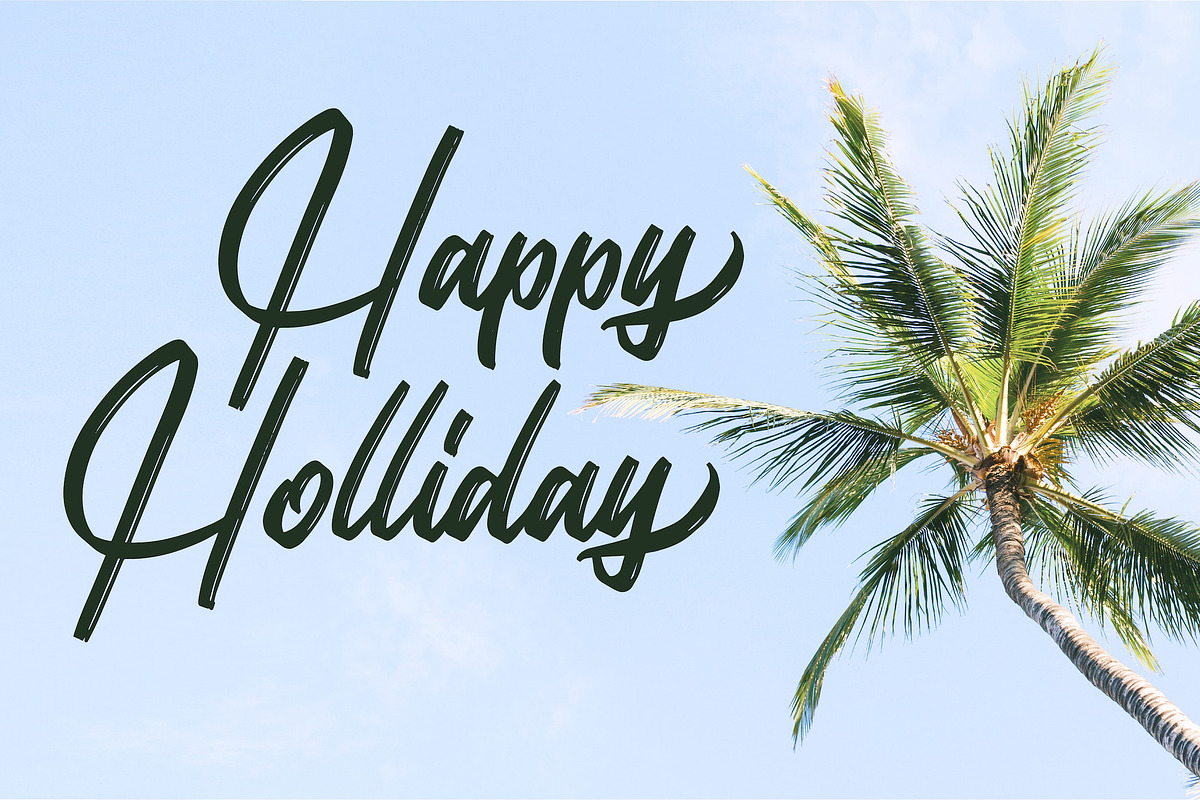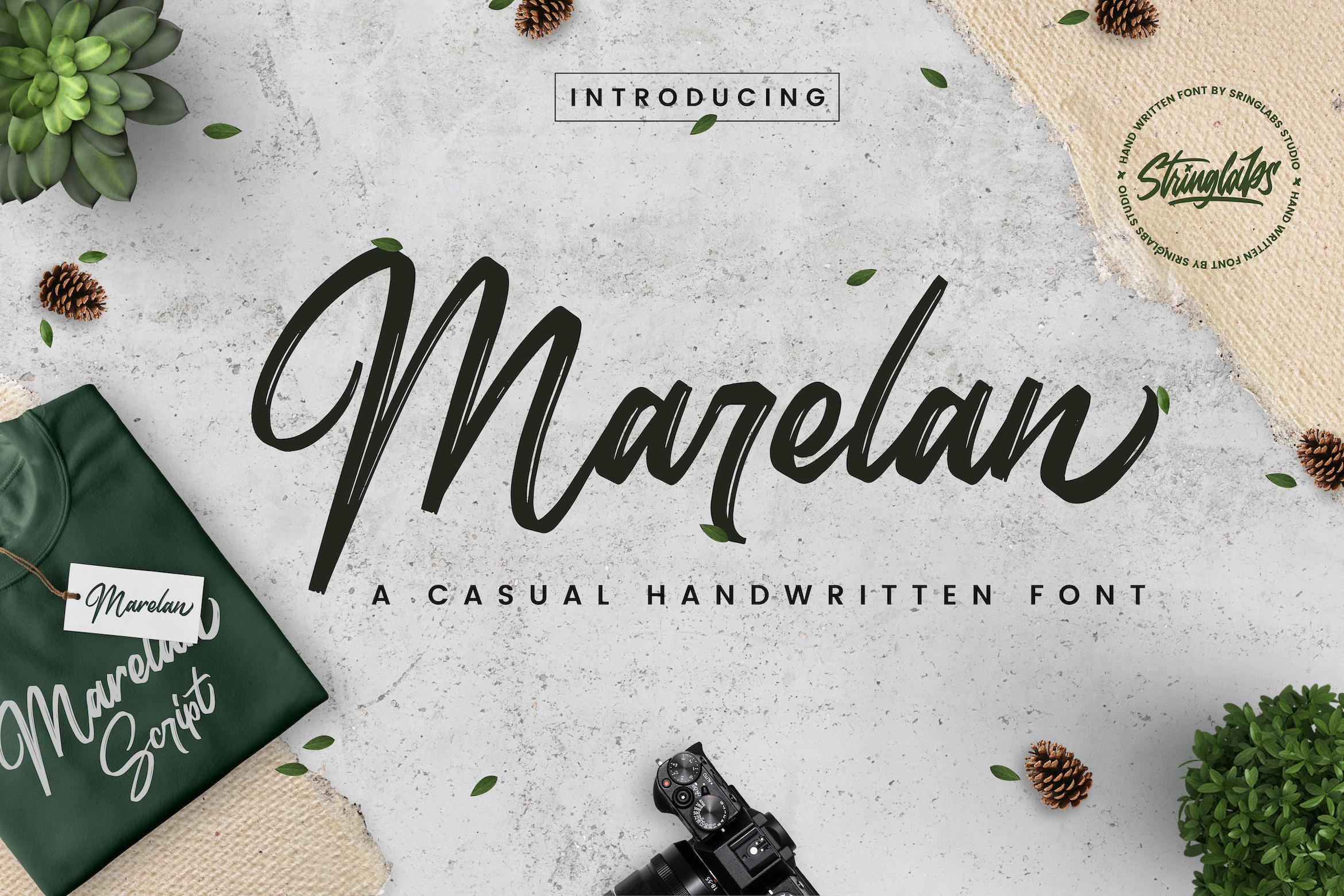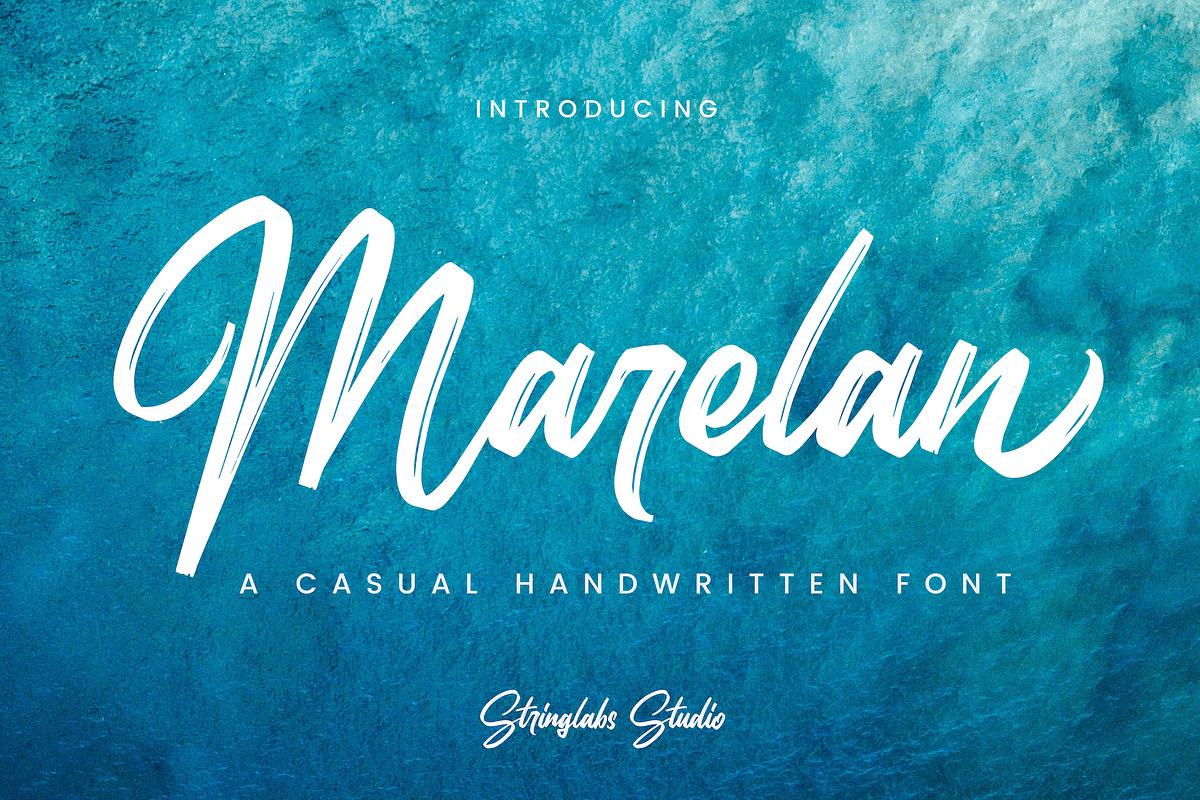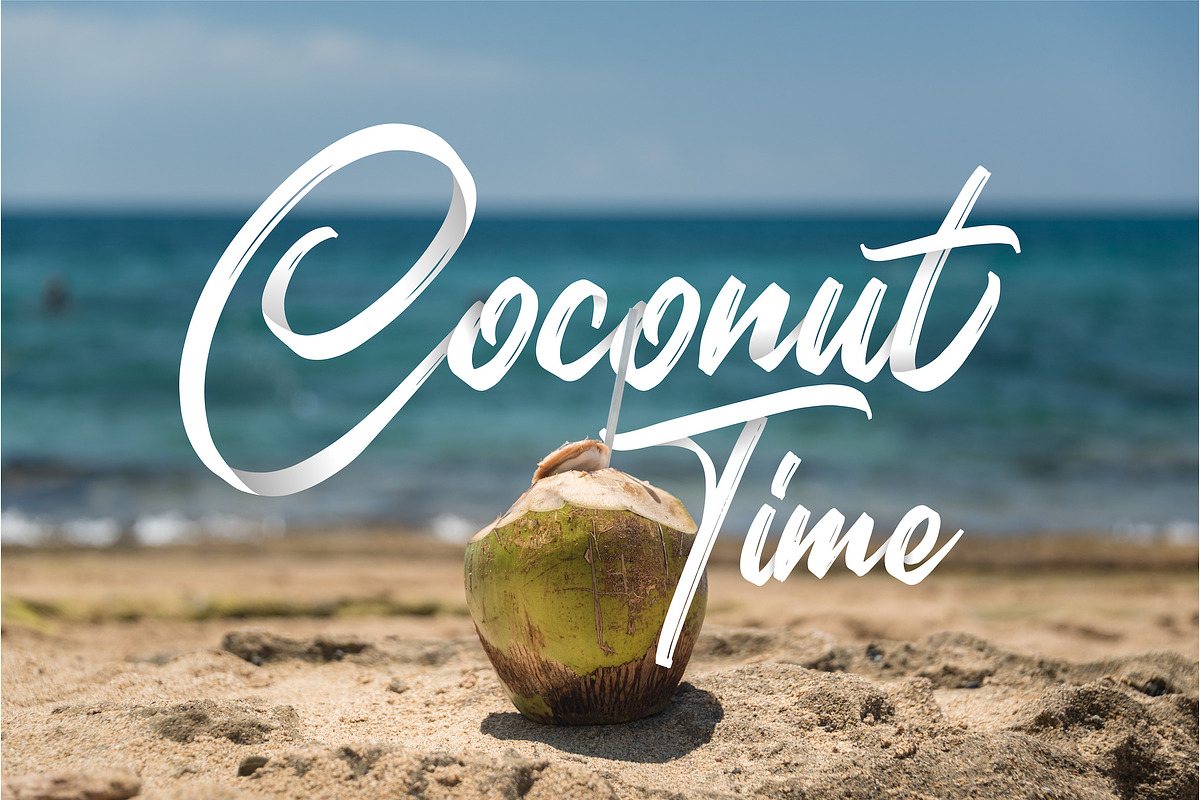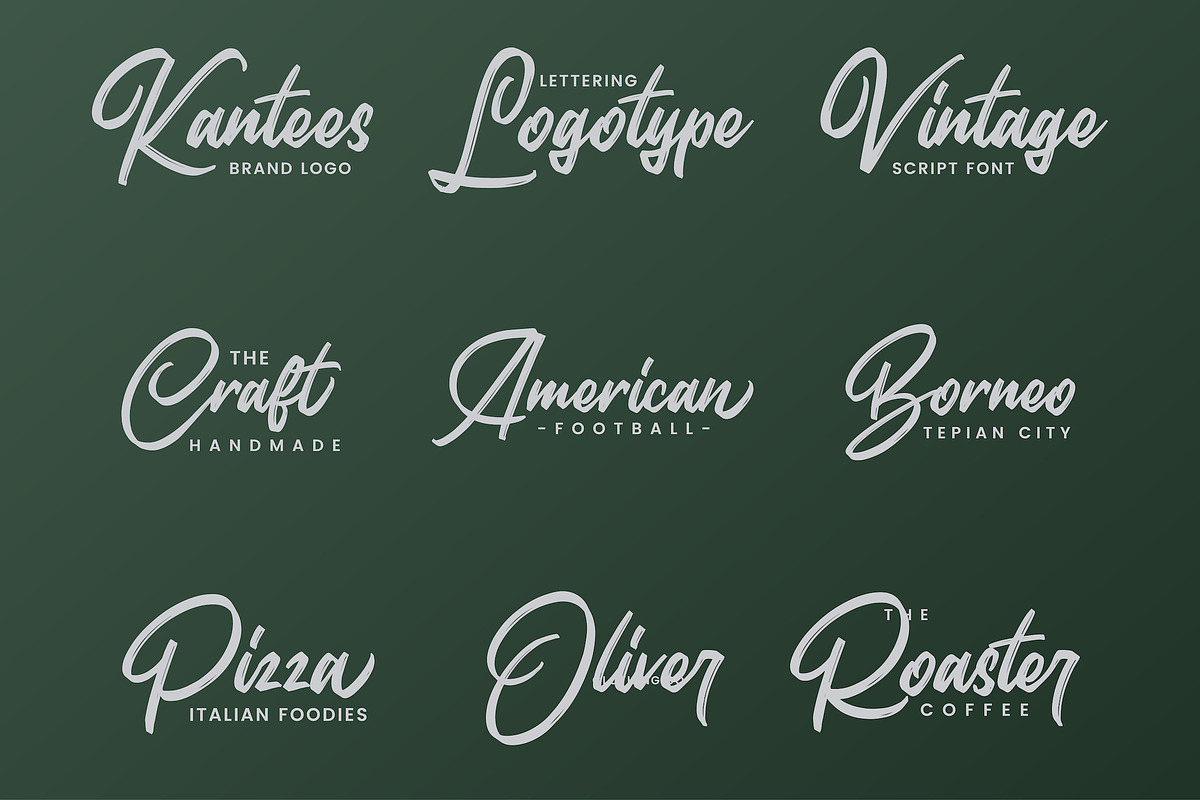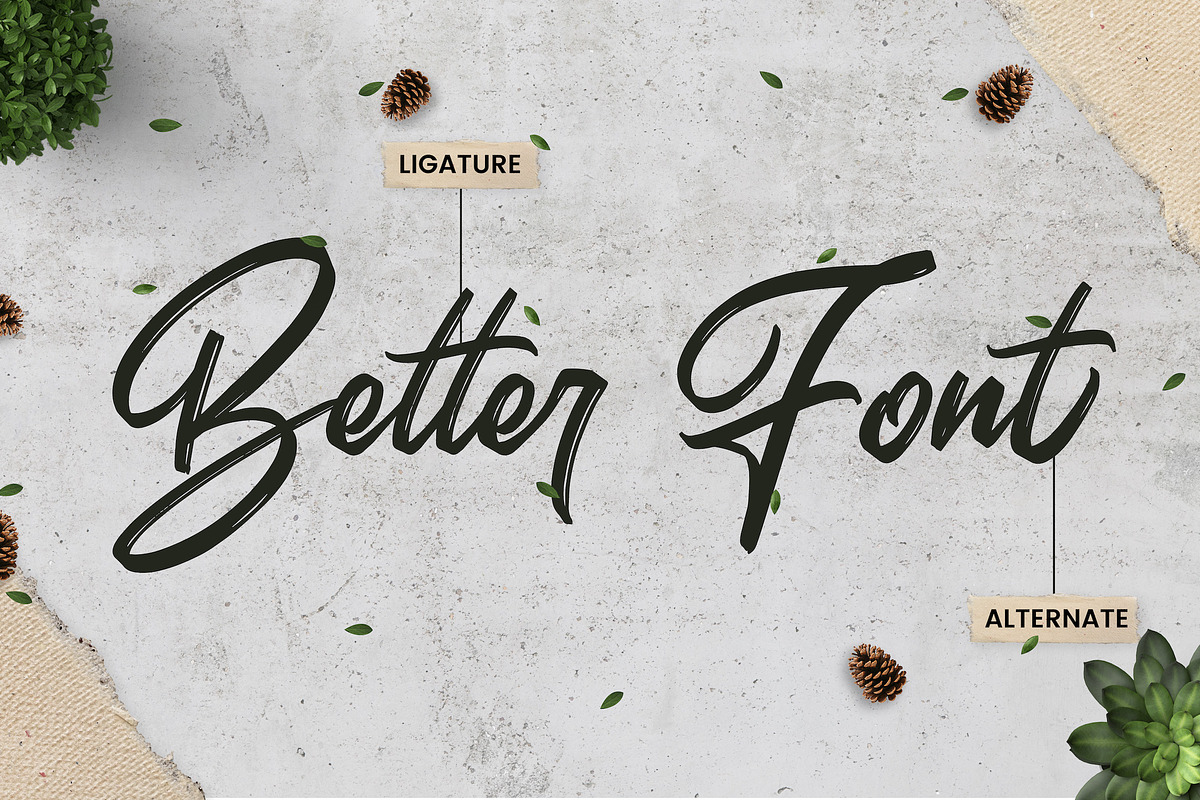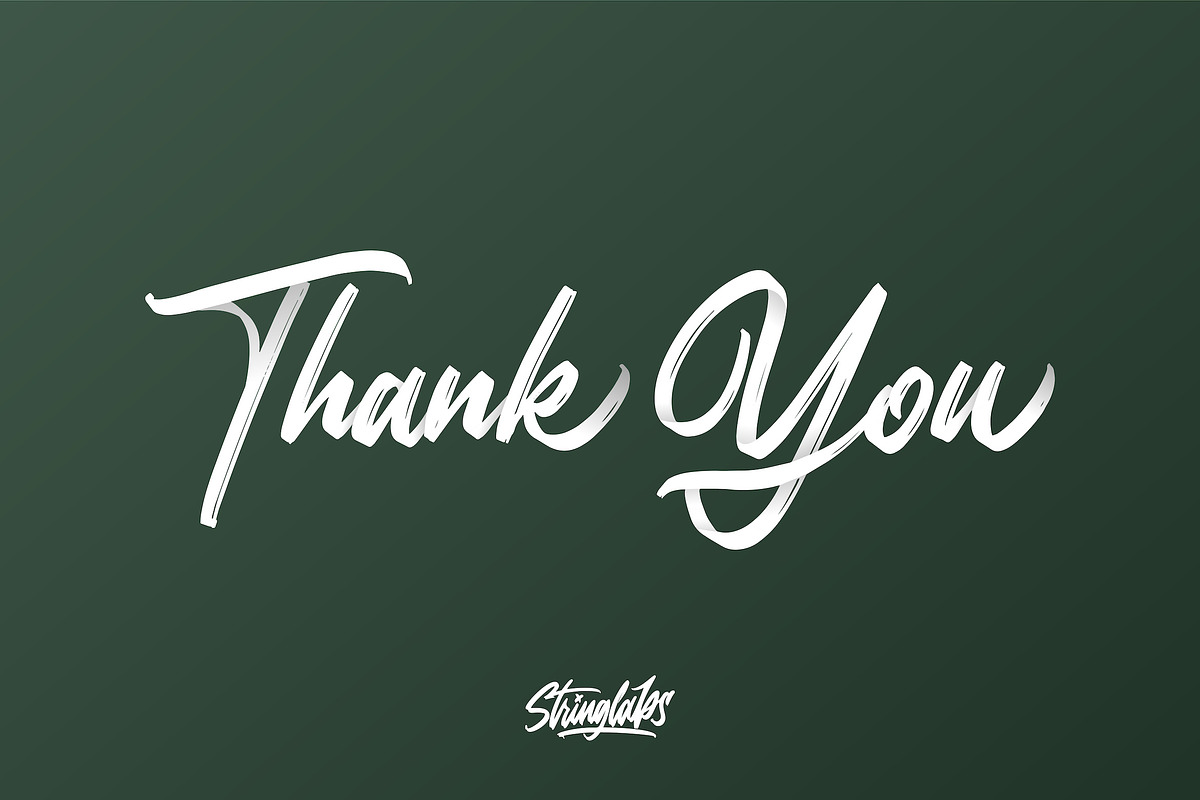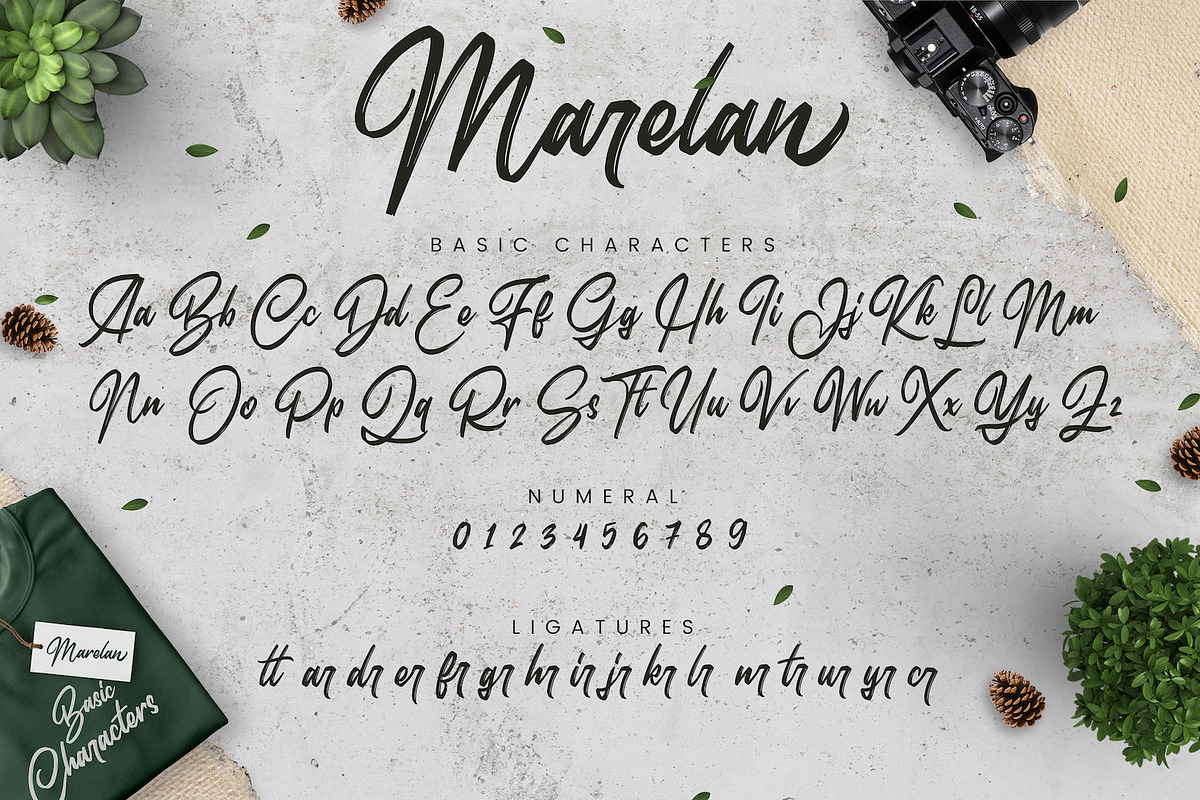
Marelan - Casual Handwritten Font
Introducing Marelan - Casual Handwritten Font
Marelan is a Casual Handwritten Font made with a unique and authentic style. Marelan has an alternative character that you can use as a choice of style. In addition, Marelan also has ligatures that enhance your font combinations. Marelan is perfect for those of you lovers of fonts with a casual and natural style